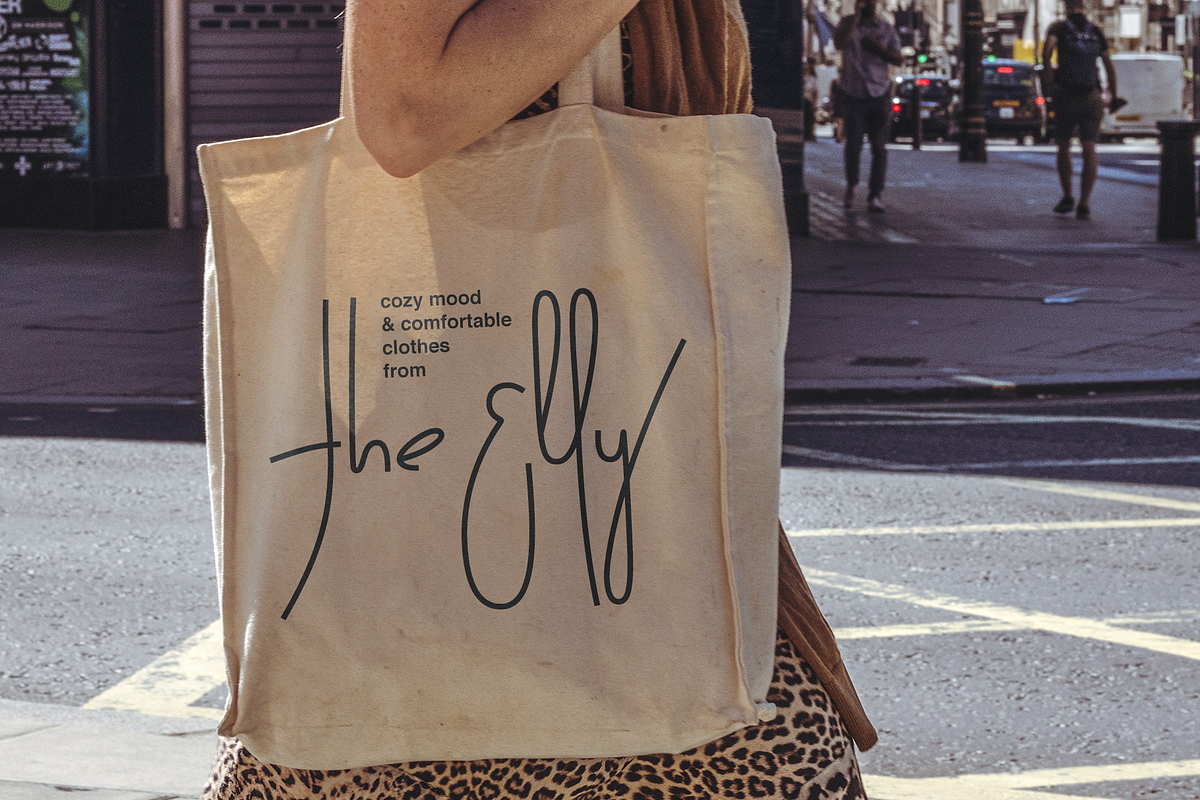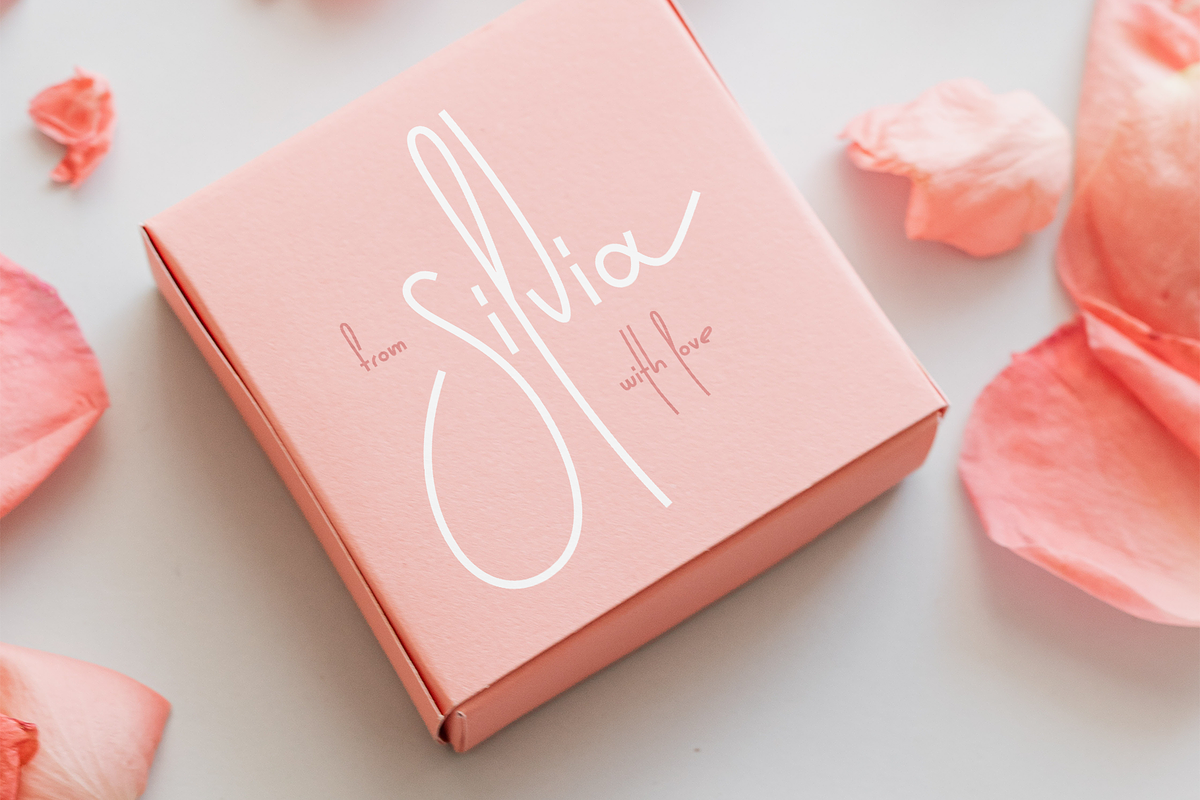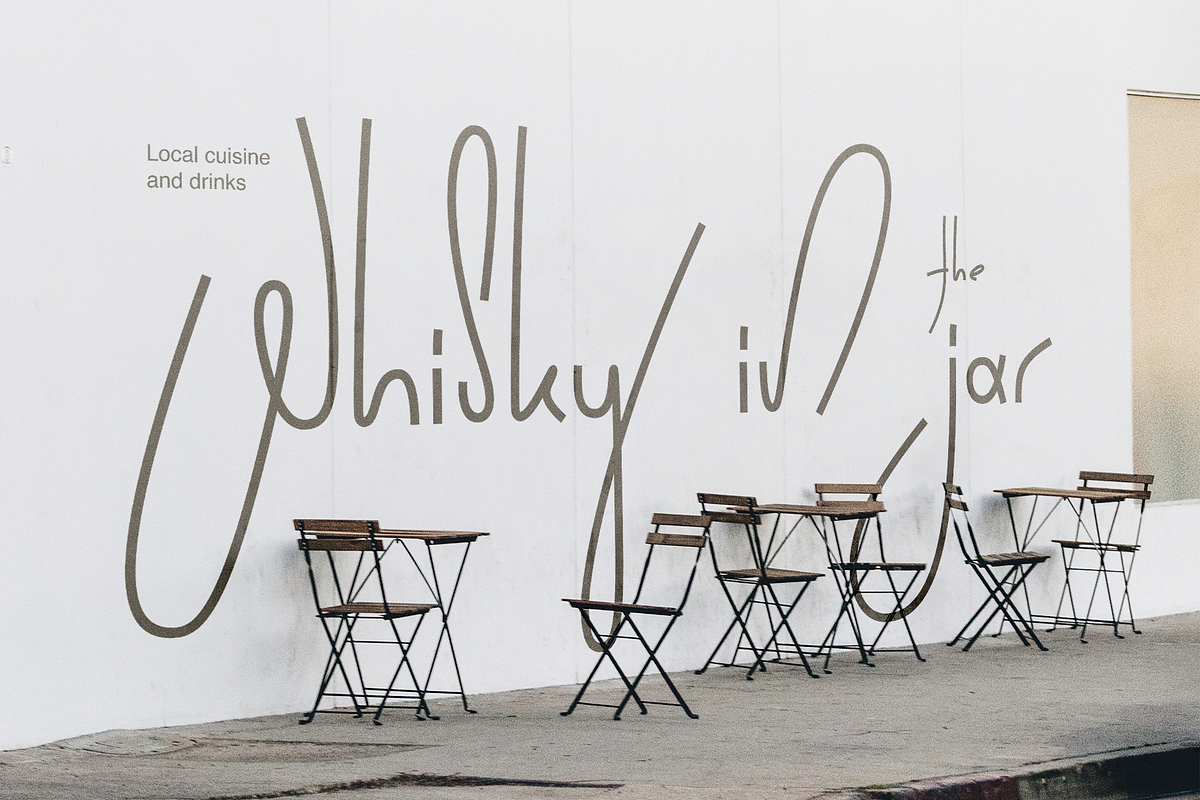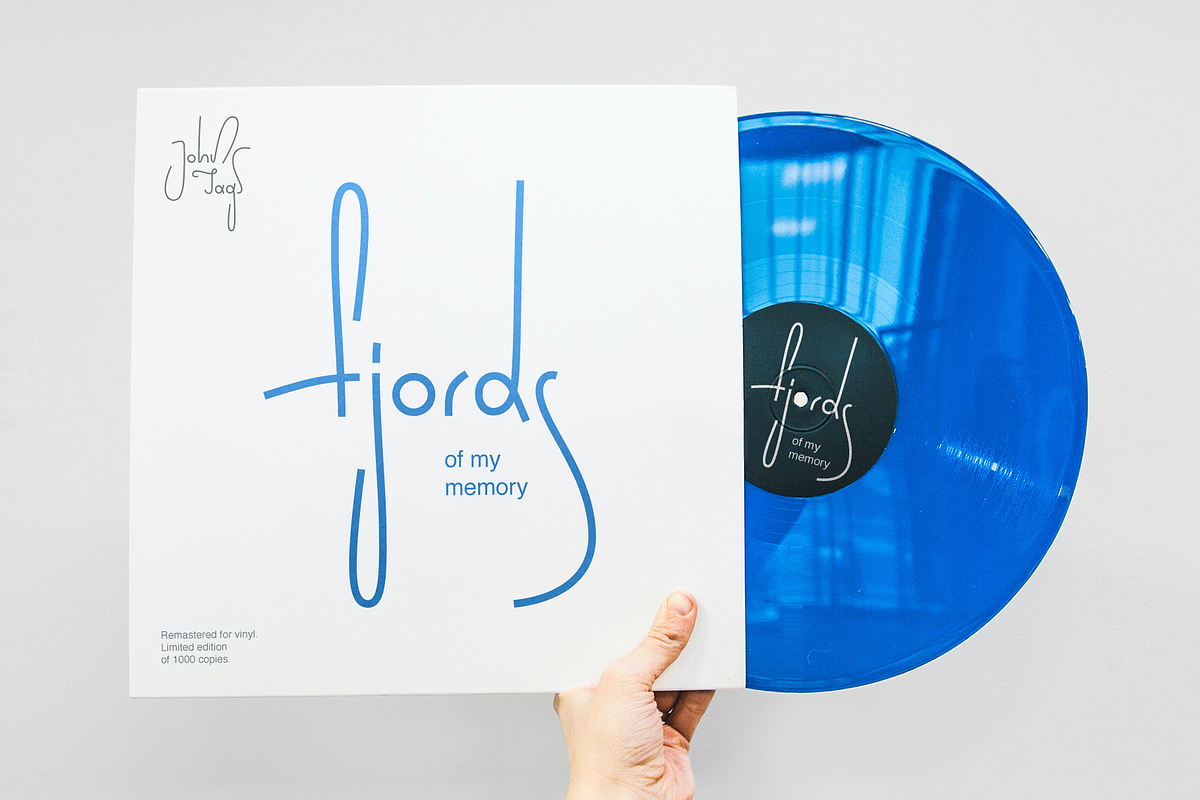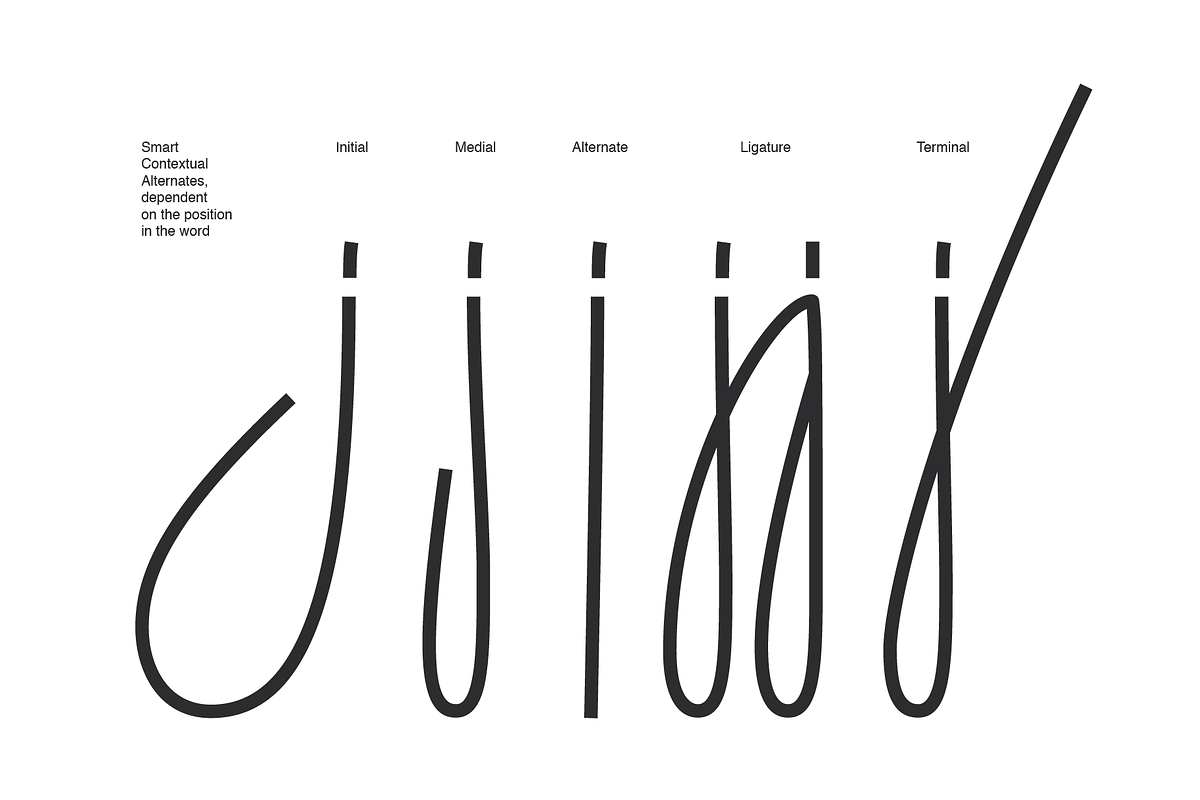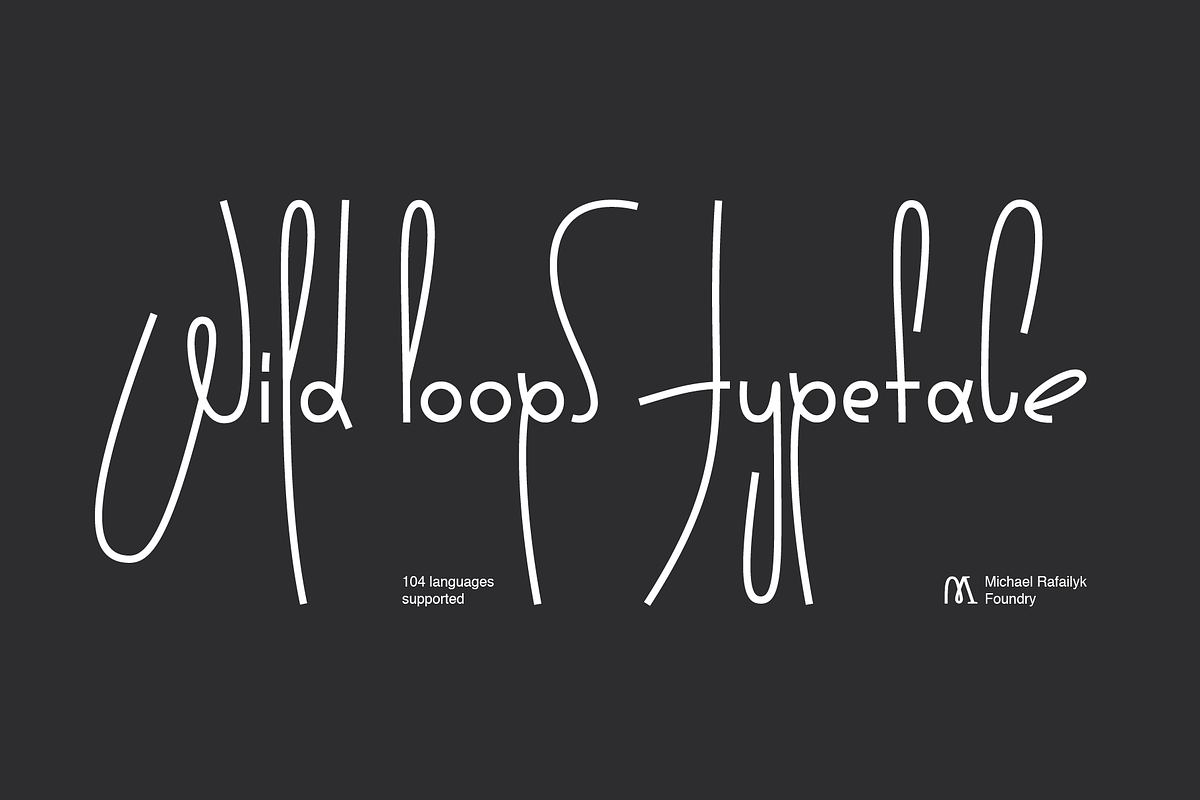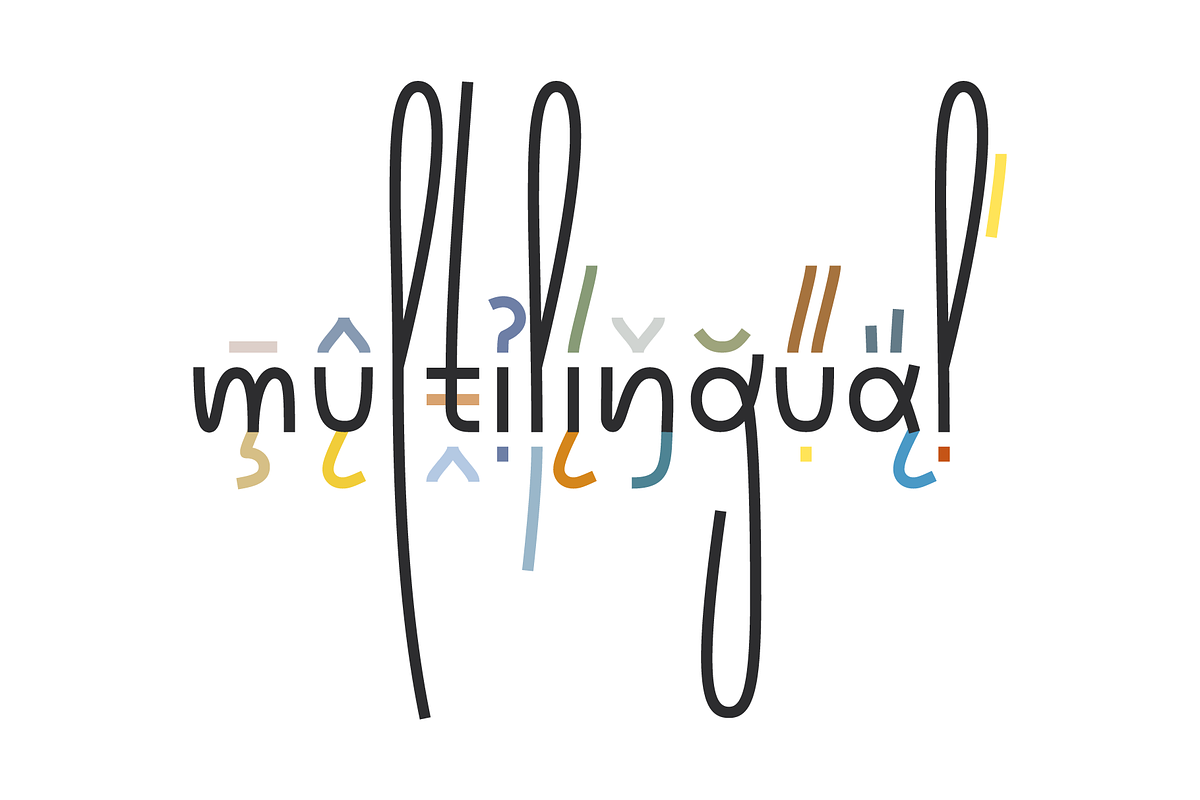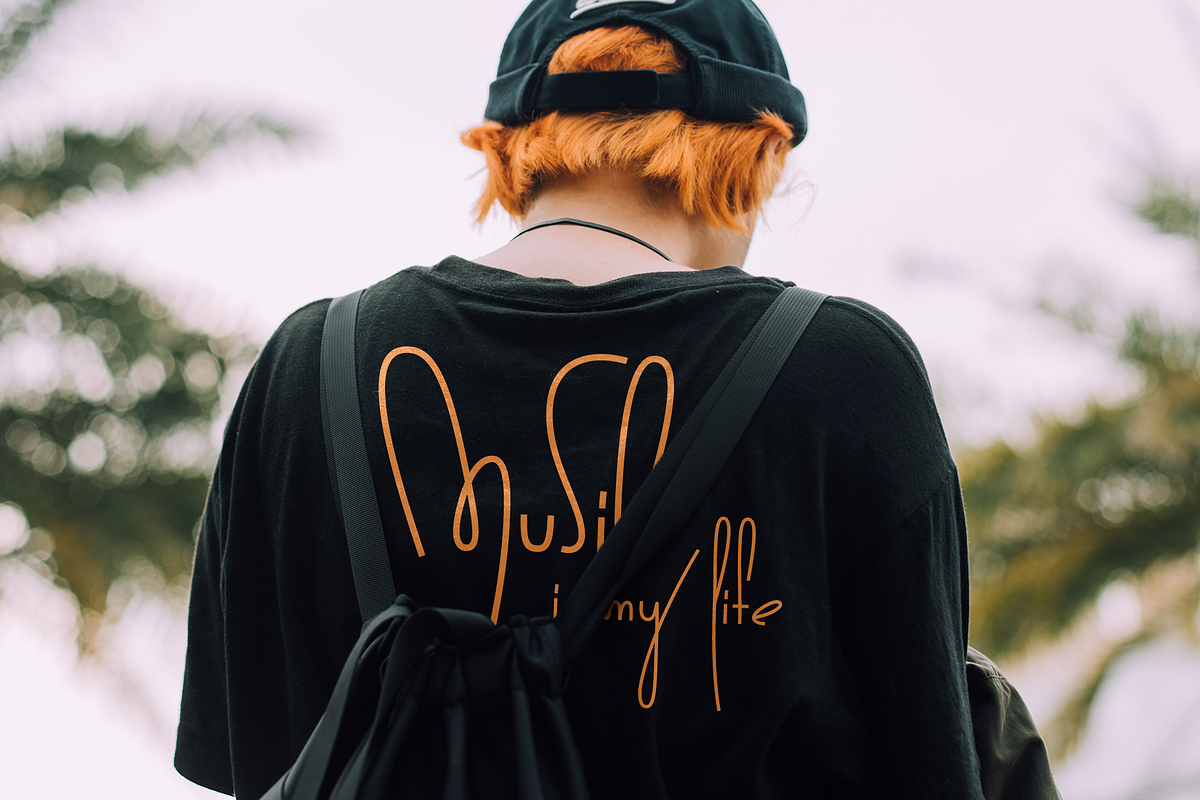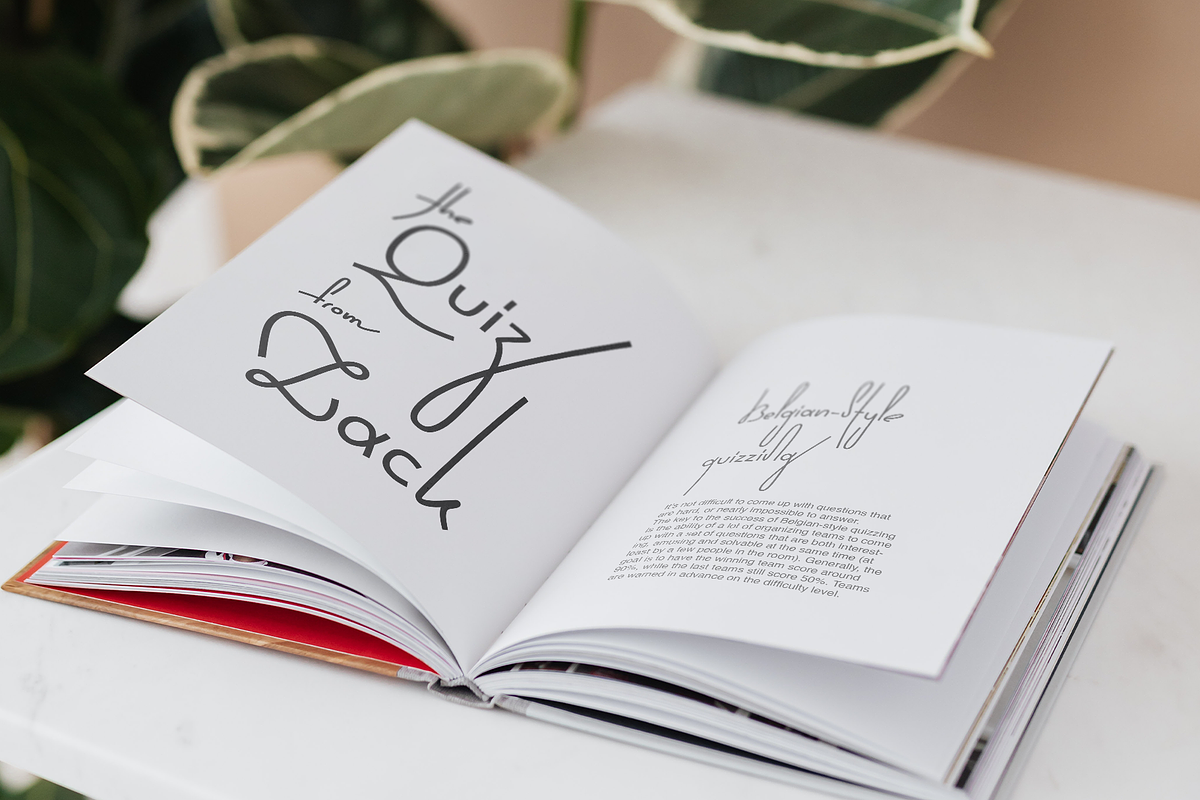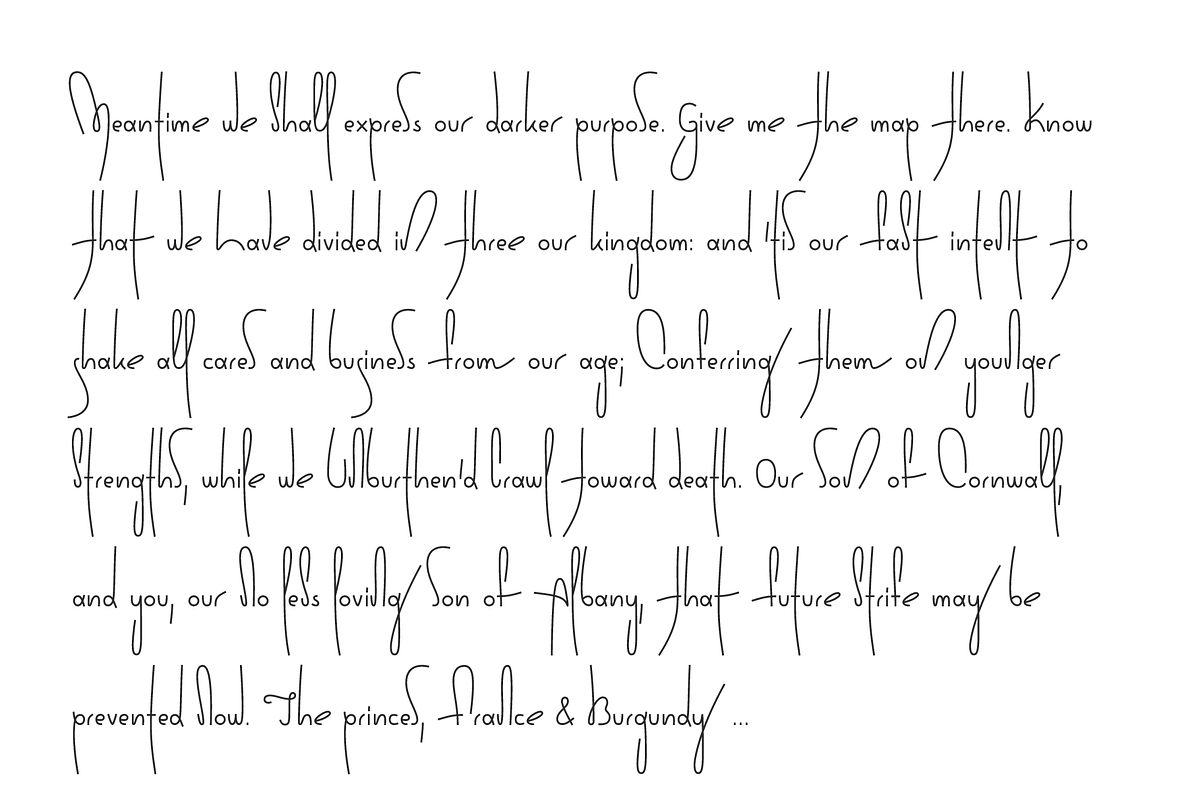
Wild Loops is a handwritten monolinear typeface for wild ideas. Inspired by the marker sketches and graffiti on the walls, the font perfectly complements Doodle illustrations. It speaks to a young audience and looks a bit crazy with stretched Ascenders and Descenders. At the same time, the font is elegant and will work well for invitations, greetings, clothing brands and jewelry. The main feature of the font is a smart Contextual Alternates that substitute different versions of letters depending on its position in the word (at the beginning, middle, and the end of a word), which makes the writing more natural.
Contextual Alternates: ACDEFGHIJKMRSUWZabcdefghjlmnqrstvwxyz АДЕЁЗІЇКЛМНСШЩЯгдеёжзклмнстухцщь ΑΕΖΗΙΚΛΜΞΥΆΈΉΪϲ ÀÁÂÃÄÅĄĂĀẢẠẮẰẲẴẶẤẦẨẪẬȦĎĐÐÈÉÊËĚĒĖẺẼẾỀỂỄƐĞǦĠÌÍÎÏĮĪĨỈỊİṂŘŔŠŚȘŽŹŻ çğģǧġņṇřŕŗşṣýỳÿỷỹỵžźżЈјЅѕўӯ123456789.
Stylistic Alternates: ABCDEFGHIJKLMNQRSUVWXZabcdefghjklmnqrstvwxyz АВДЕЁЗІЇКЛМНСТШЩЯгдеёжзклмнстухцщь ΑΕΖΗΙΚΛΜΞΥΆΈΉΪκϲ ÀÁÂÃÄÅĄĂĀẢẠẮẰẲẴẶẤẦẨẪẬȦĎĐÐÈÉÊËĚĒĖẺẼẾỀỂỄƐĞǦĠÌÍÎÏĮĪĨỈỊİṂŘŔŠŚȘŽŹŻ çğģǧġņṇřŕŗşṣýỳÿỷỹỵžźżЈјЅѕўӯ123456789&.
Ligatures: jj ll.
Superscript, Subscript, Fractions: ⁰¹²³⁴⁵⁶⁷⁸⁹ ₀₁₂₃₄₅₆₇₈₉ ½ ¼ ¾.